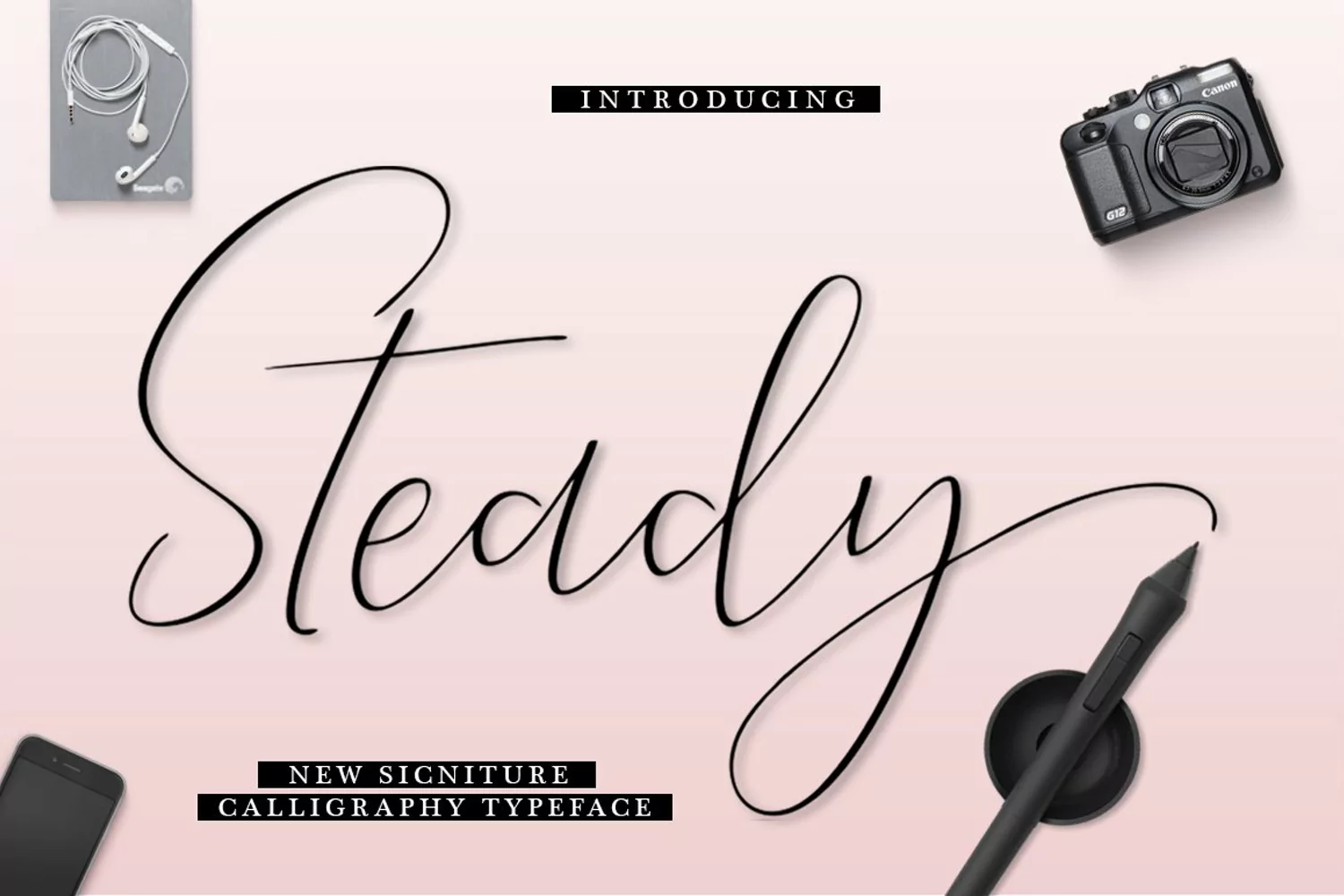
Steady is a chic and modern calligraphy script font. Add a touch of elegance and style to your typography. Keep your look professional yet casual. It's a very approachable font that will impress and please the most discerning eye. Steady is a soft flowing, well designed font that will make a great addition to your font book.